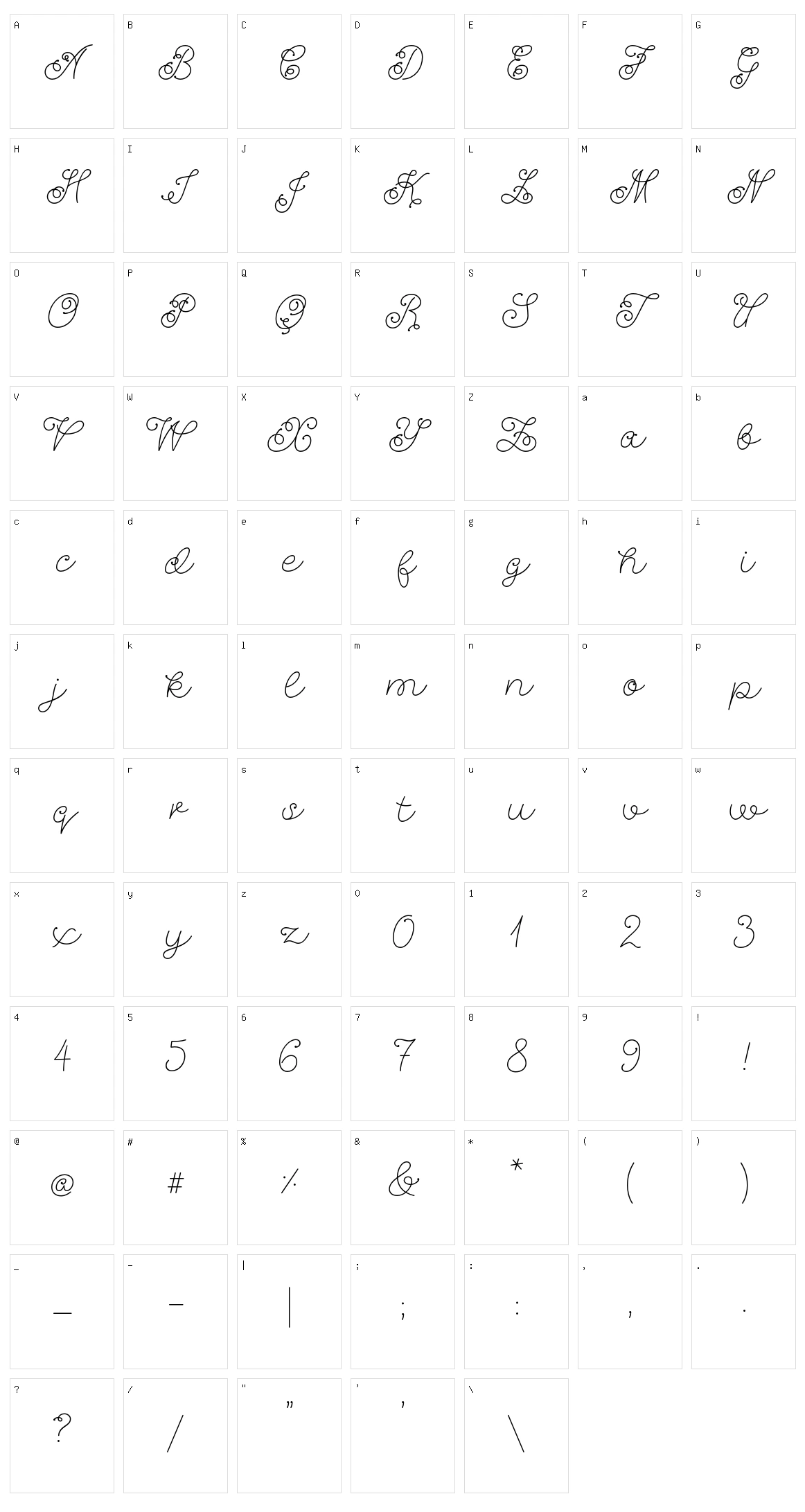
Hawaii Beach
Designed by: RB Fonts
ÿþA handwritten, fully cursive monoline script, Hawaii Beach is great for all your creative projects with its curly, playful flow whether it be
* logos,
* printed quotes,
* invitations,
* cards,
* Instagram posts.